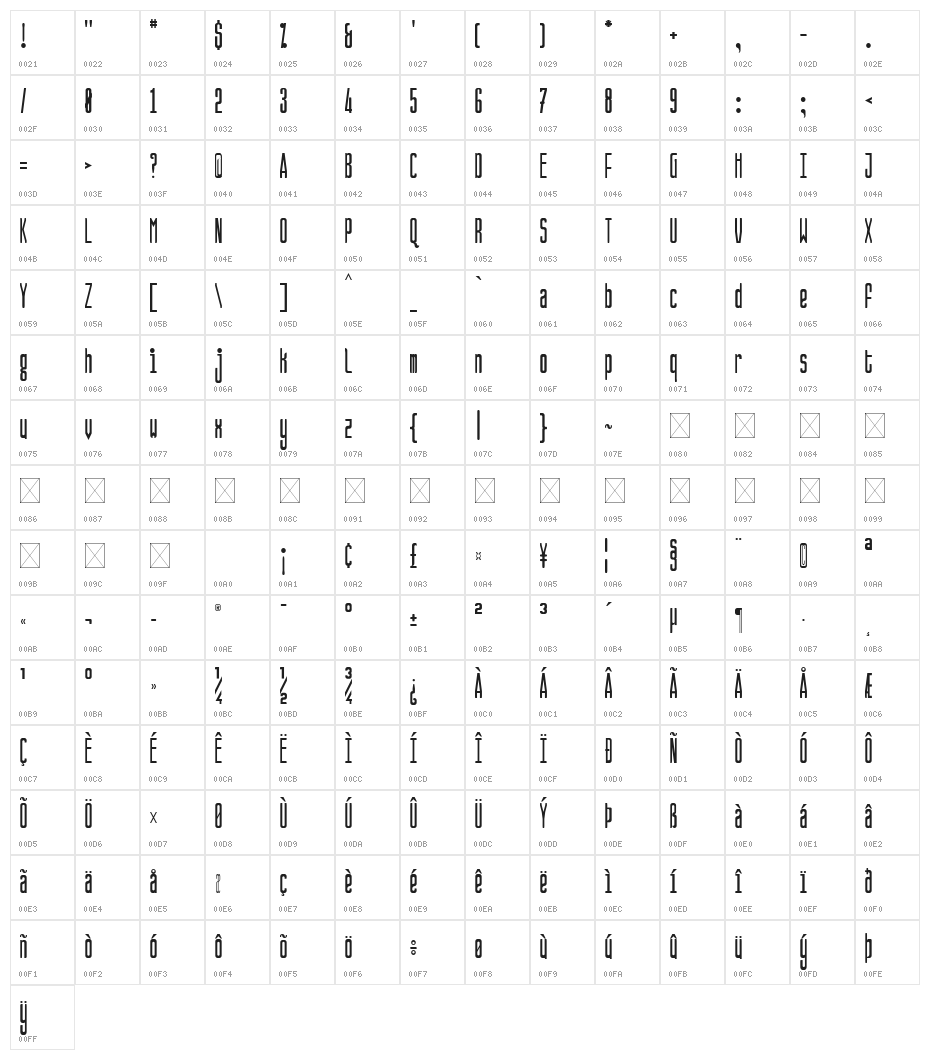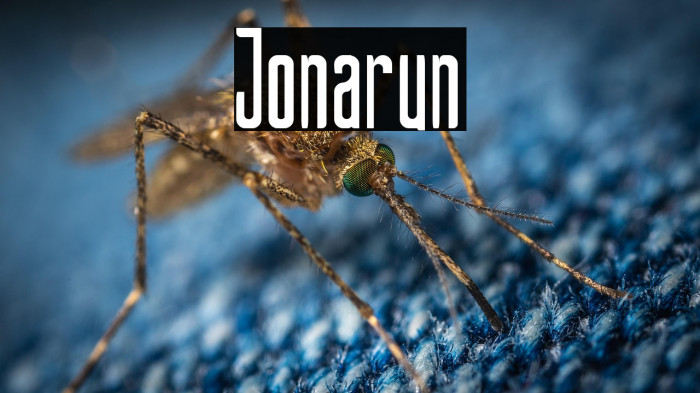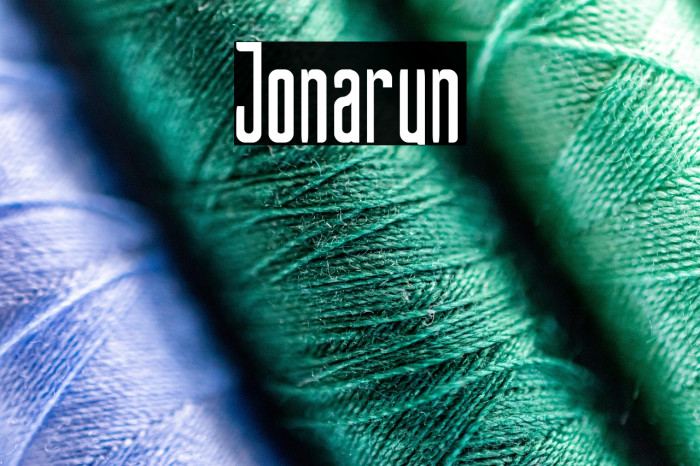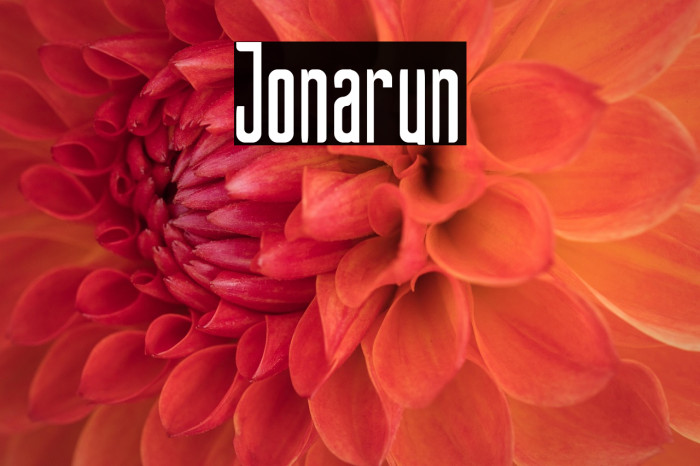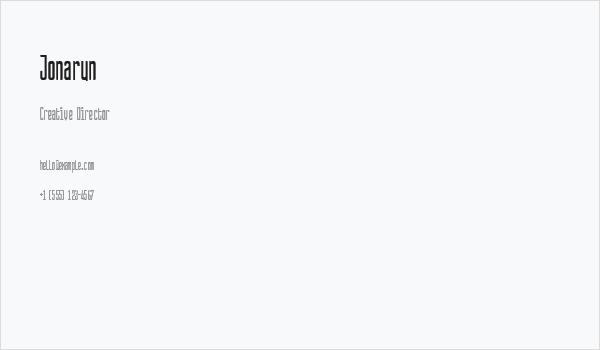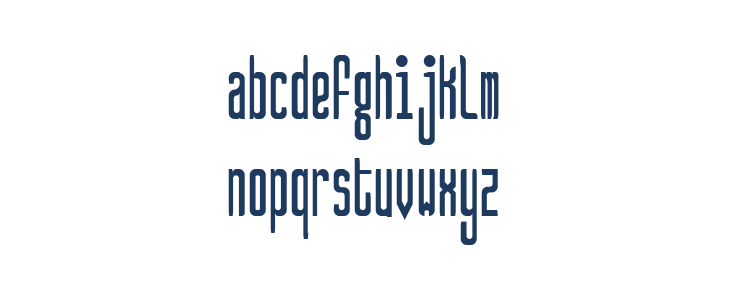
Jonarun Font
Jonarun Description
This font features a tall and narrow design with a distinct modern flair. The uppercase letters are elongated, giving a sense of height and elegance, while the lowercase letters maintain a consistent style that complements the uppercase. The numbers are similarly narrow, ensuring uniformity across the typeface. Special characters are designed to match the overall aesthetic, providing a cohesive look. The font's unique style makes it suitable for eye-catching designs where space is limited but impact is needed.
Use CaseHeadlines, Posters, Branding
Proposed ProjectsIdeal for posters, headlines, and branding materials where a modern and impactful look is desired.